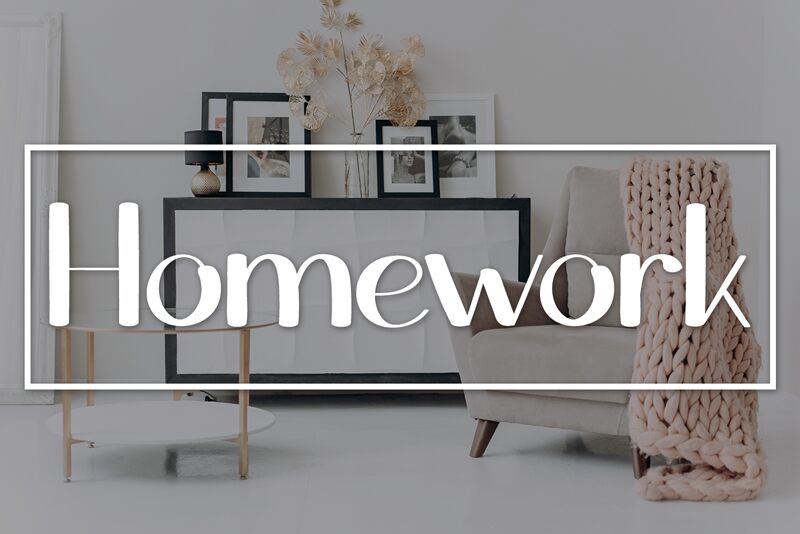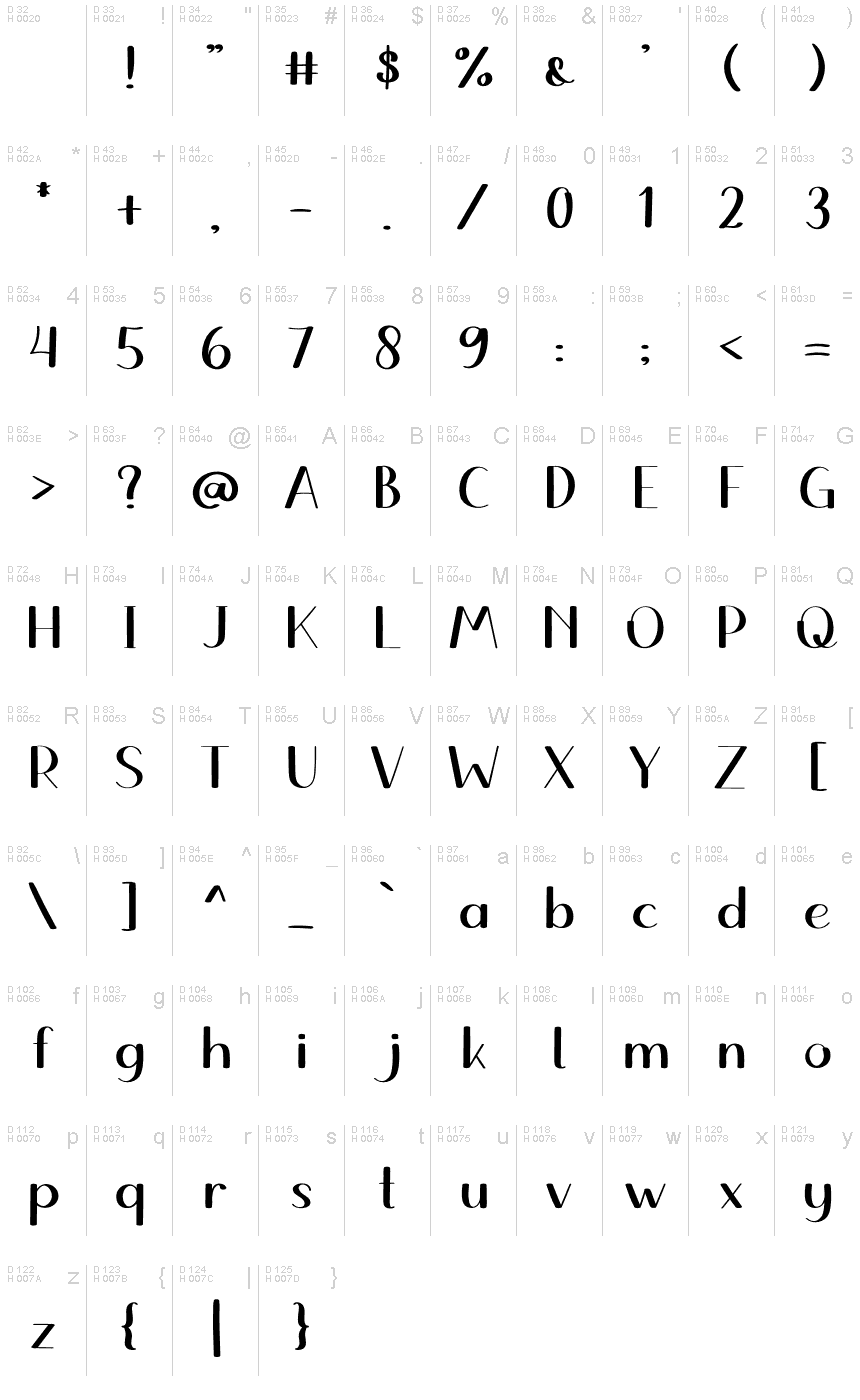
Homework
Homework, the charming handwritten font designed by Erik Studio, is perfect for projects that require a personal touch. With its playful and quirky style, this semi-bold typeface is ideal for invitations, greeting cards, and other handmade designs. Its wide width allows for easy readability while maintaining its unique character. Whether you're creating a children's book or a brand identity for a boutique business, Homework will add an extra dose of personality to your project. Get ready to bring your creativity to life with this fun and functional font!